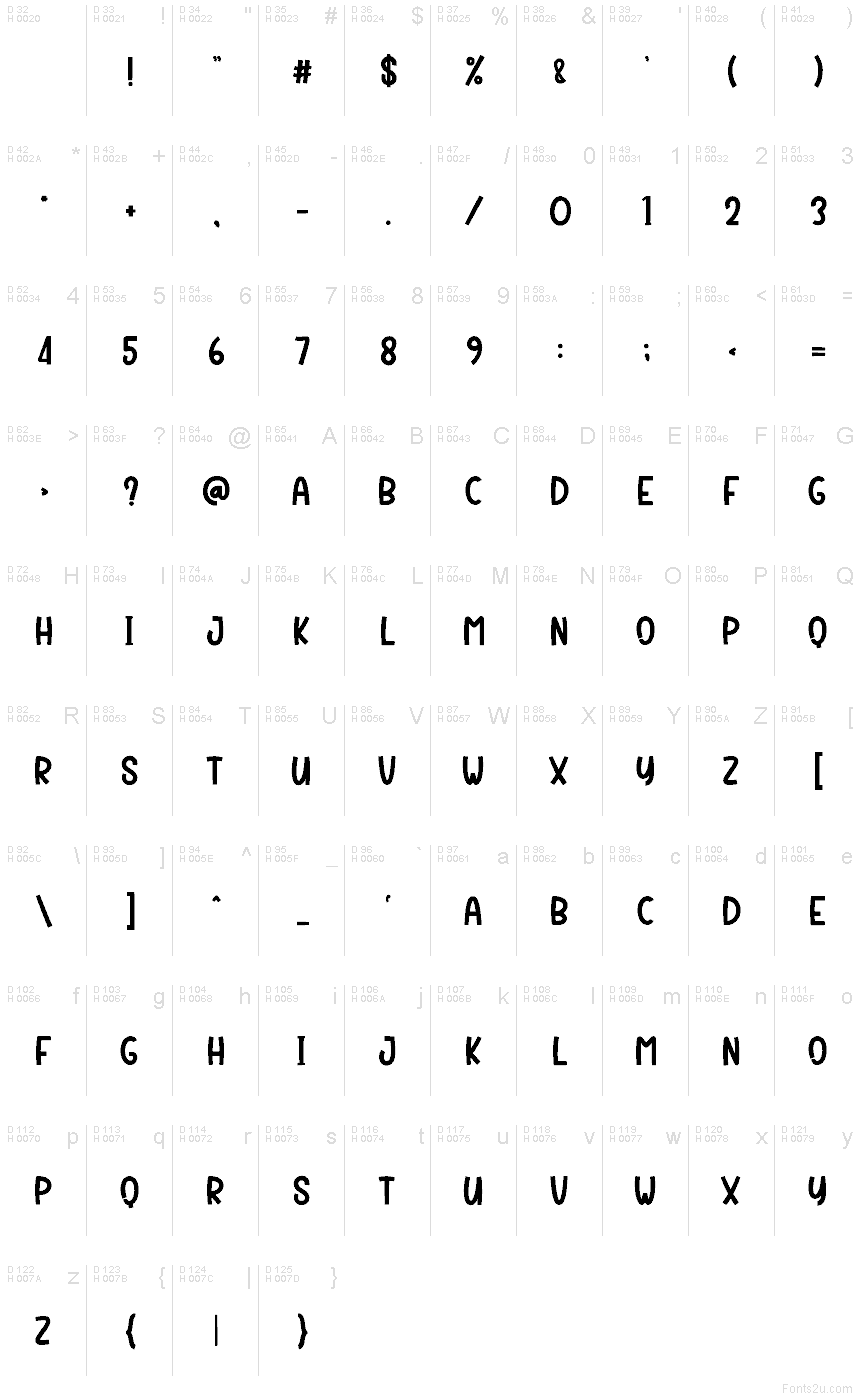
Scene Winter
Scene Winter font by Scratchones is a free handwritten font that balances a casual style with warm and inviting mood. The display font impresses with its rounded letterforms, slightly irregular alignments, and excellent readability.
With its friendly feel, this typeface fits superbly into coffee shop advertising, apparel labeling, branding projects, merchandise packaging designs, social media posts and banners.